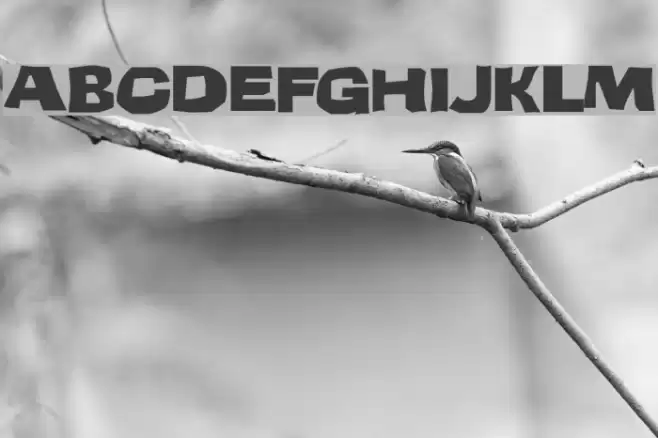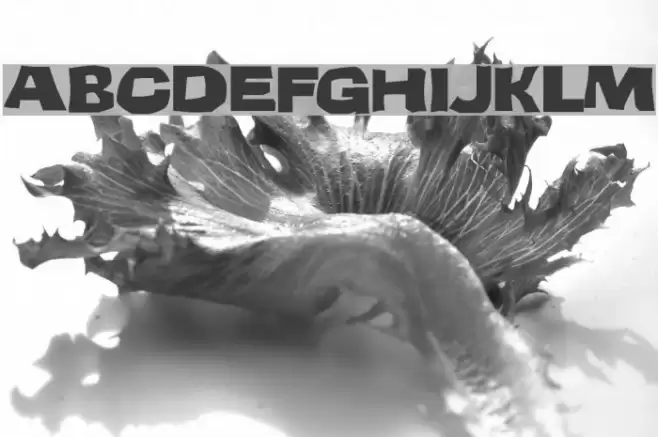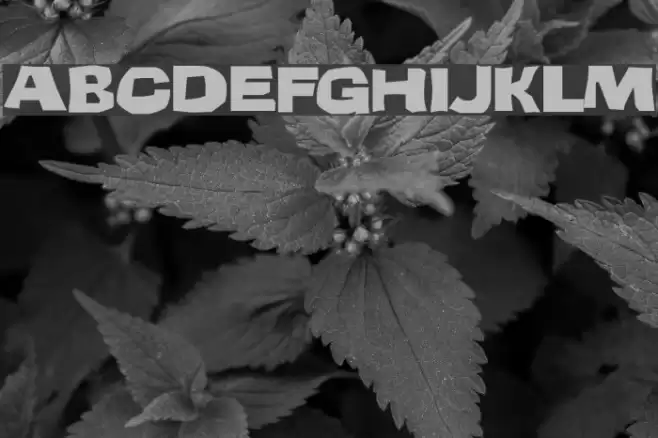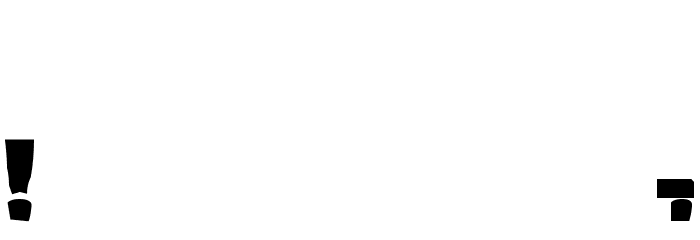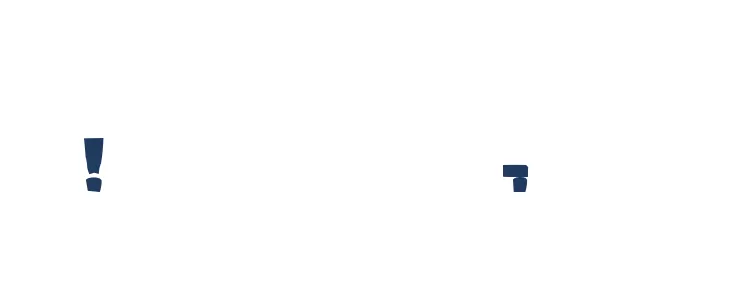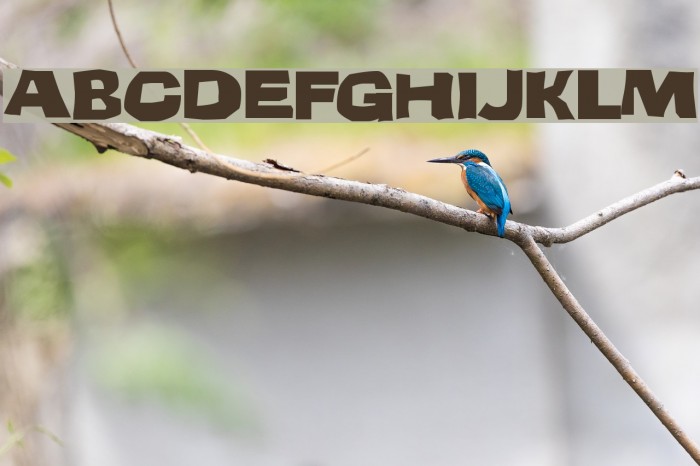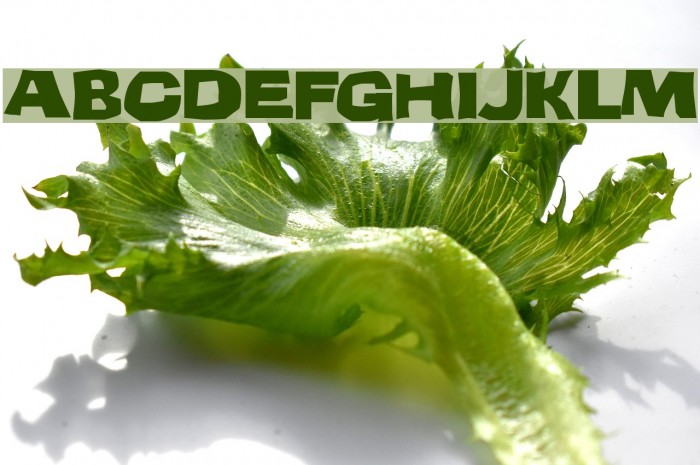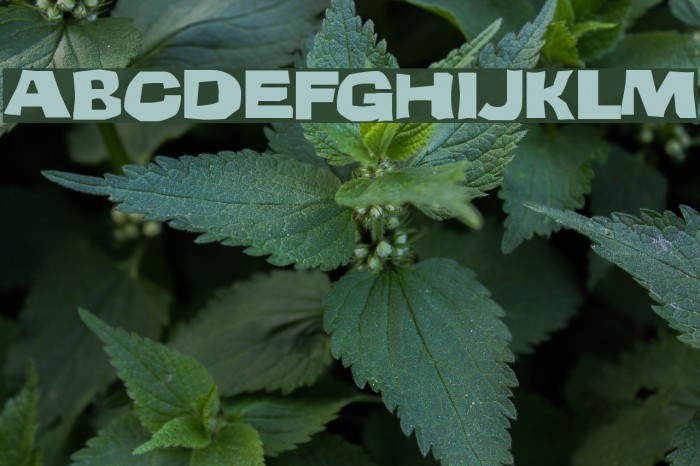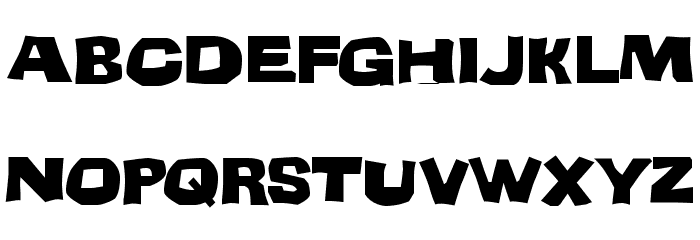
Teenage Delinquent Font
Teenage Delinquent Description
This font features a bold and edgy design, characterized by its thick, angular strokes and irregular shapes. The letters have a graffiti-like appearance, giving them a rebellious and urban feel. The uppercase letters are particularly striking, with exaggerated curves and sharp edges that create a dynamic and energetic look. The font's style is reminiscent of street art, making it ideal for projects that require a bold and unconventional aesthetic. Its unique design elements make it stand out, while still maintaining readability.
A bold, graffiti-inspired font with angular strokes and an urban vibe from Handwritten fonts.
- Proposed Projects: Perfect for street art designs, music album covers, urban-themed posters, and edgy branding projects.